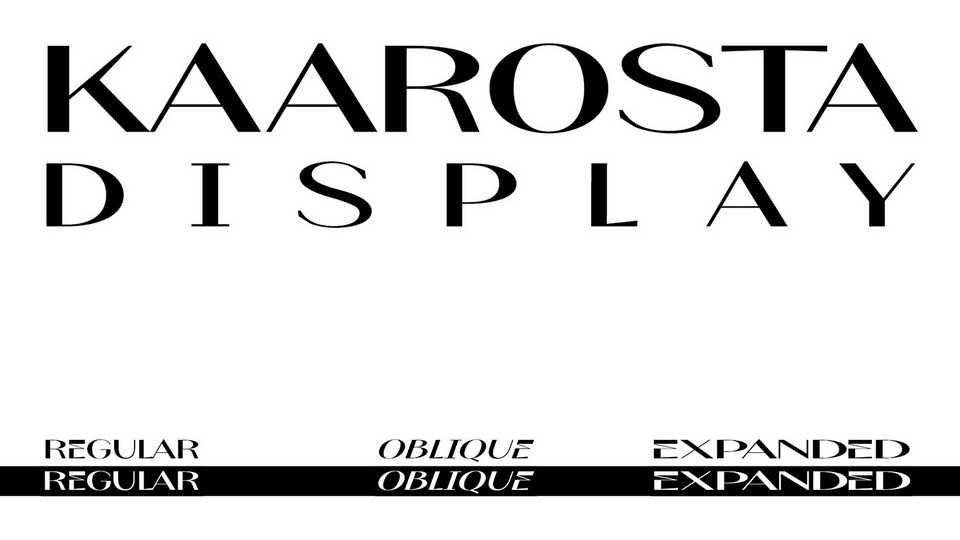
Download Kaarosta typeface, a modern, high contrast display serif font family with low x-height and wide proportions. Kaarosta is inspired by Oranienbaum, which are modern antiqua for headlines and body.
Designer: Istvan Krizsanyik